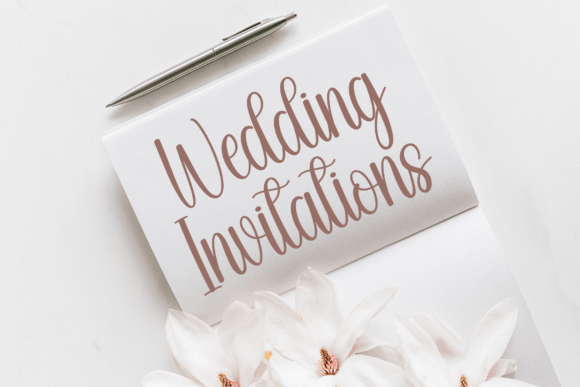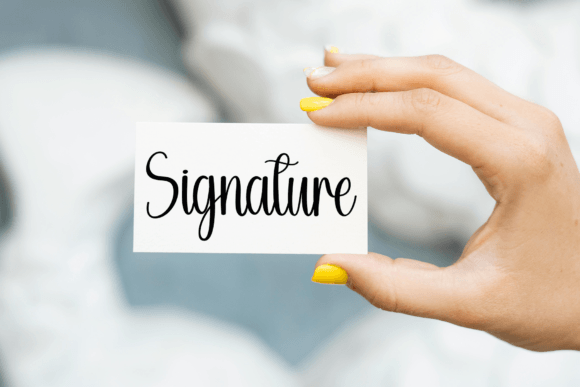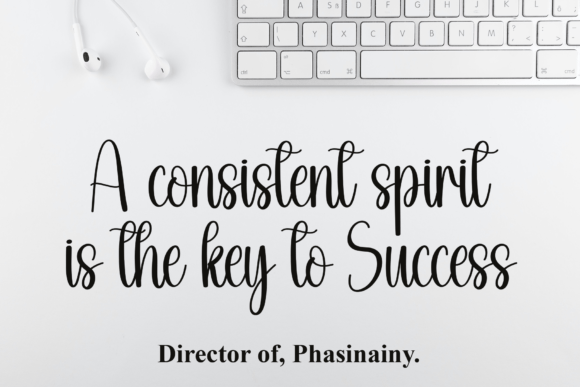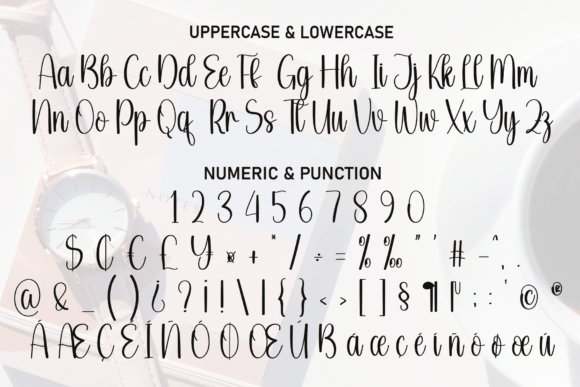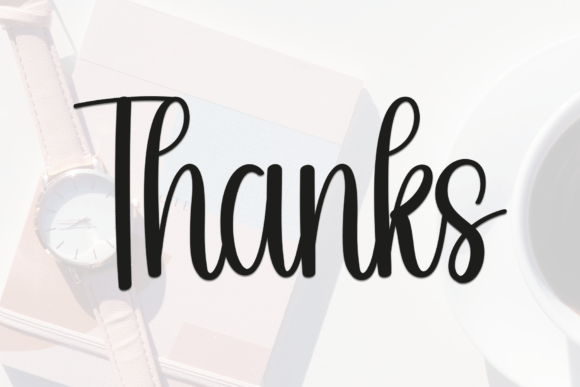
Discover the Elegance of Besttime Font: Elevate Your Designs with Timeless Style
In the world of typography, fonts play a crucial role in conveying messages, evoking emotions, and setting the tone for any design project. Among the myriad of fonts available, the Besttime Font stands out for its unique blend of elegance and simplicity. Described as a neat and beautiful handwritten font with an elegant touch, Besttime is perfect for designers and crafters looking to add a touch of sophistication to their projects.
The Distinctive Charm of Besttime Font
Besttime Font is characterized by its incredibly distinct and timeless style. Its elegant strokes and carefully crafted letters make it a versatile choice for a wide range of design applications, from branding and advertising to packaging and digital media. The font’s neat and beautiful appearance ensures that it remains legible and impactful, even in smaller sizes, making it an excellent choice for body text and headings alike.
Why Fall in Love with Besttime Font?
There are several reasons why designers and crafters fall in love with Besttime Font:
- Elegant Touch: The font’s elegant touch adds a level of sophistication to any design, making it perfect for projects that require a refined look.
- Timeless Style: Unlike trendy fonts that may quickly become outdated, Besttime Font boasts a timeless style that ensures your designs remain relevant for years to come.
- Versatility: Besttime Font is incredibly versatile, suitable for a wide range of projects, including logos, brochures, posters, and digital media.
- Legibility: The font’s neat and clear letters ensure excellent legibility, making it an excellent choice for both headings and body text.
Using Besttime Font for Spectacular Designs
To create spectacular designs with Besttime Font, consider the following tips:
- Pair with Complementary Fonts: Combine Besttime Font with complementary fonts to create visual interest and hierarchy in your designs.
- Experiment with Colors: Besttime Font looks stunning in a variety of colors. Experiment with different hues and shades to find the perfect match for your project.
- Play with Sizes: Don’t be afraid to experiment with different font sizes to create visual hierarchy and emphasize key elements in your design.
- Add Creative Elements: Consider adding creative elements, such as illustrations or graphics, to enhance your design and make it more engaging.
Besttime Font in Digital and Print Media
Besttime Font is not limited to digital media; it shines equally in print. Whether you’re designing a logo, brochure, or poster, this font ensures that your message is conveyed with elegance and clarity. In digital media, Besttime Font is perfect for websites, social media graphics, and email marketing campaigns, providing a consistent and professional look across all platforms.
Besttime Font is a beautiful and elegant handwritten font that offers a timeless style perfect for a wide range of design projects. Its distinct charm, versatility, and legibility make it an excellent choice for designers and crafters looking to elevate their designs. By incorporating Besttime Font into your projects, you can create spectacular designs that leave a lasting impression. So, fall in love with Besttime Font and discover the elegance it brings to your creative endeavors.
Key Features of Besttime Font:
- Elegant and neat handwritten font
- Timeless and distinct style
- Perfect for a wide range of design projects
- Excellent legibility
- Versatile for use in both digital and print media
Embrace the elegance of Besttime Font and take your designs to the next level. Whether you’re a professional designer or a crafting enthusiast, Besttime Font is sure to become a favorite in your collection.